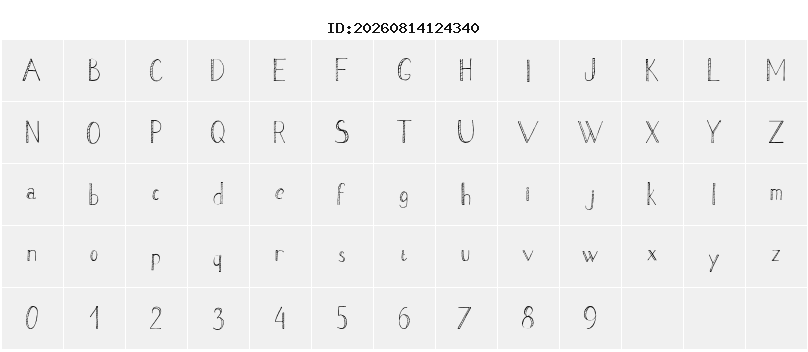
• Font Name: Stripe
• Full Font Name: Stripe
• Manufacturer: Anastasia Popova
About Stripe.ttf
Stripe.ttf is a modern, elegant sans-serif font designed for ultimate readability and visual harmony. Perfect for branding, headlines, web design, and print materials.